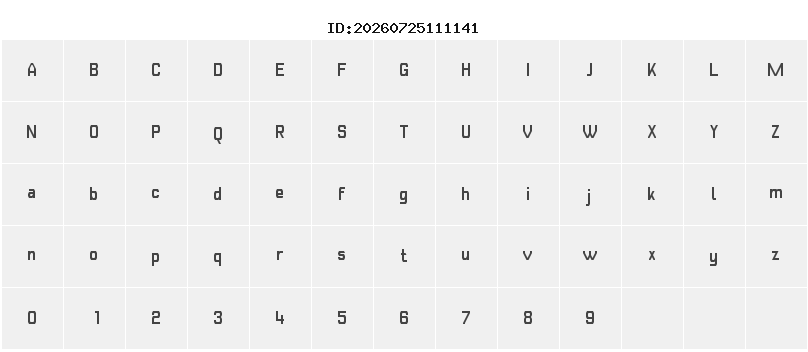
• Font Name: GVB Bus PID 13x8
• Designer: Jeffrey Visser
• Description: “GVB Bus PID 13x8” was built with FontStruct “GVB Bus PID 13x8” is based on “GVB Bus PID 7x4” by “Jeffrey Visser” (http://fontstruct.com/fontstructors/jffry101)
About GVB Bus PID 13x8.ttf
GVB Bus PID 13x8.ttf is a modern, elegant sans-serif font designed for ultimate readability and visual harmony. Perfect for branding, headlines, web design, and print materials.